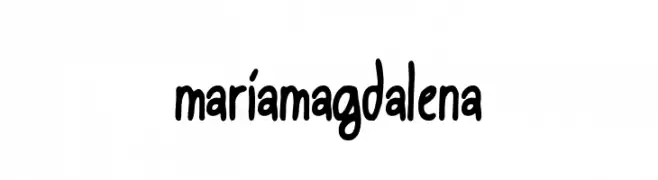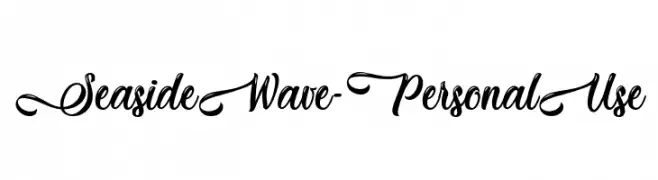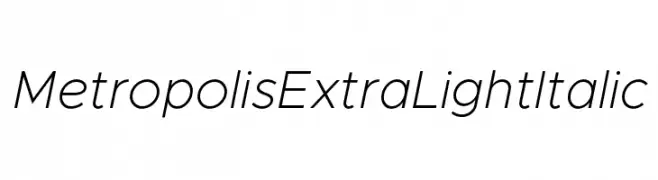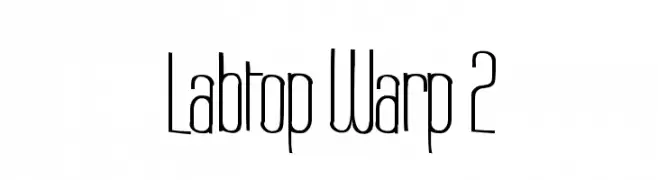
( TwoNineFive - Maximillian Limpo )
A dot matrix style font with a retro digital aesthetic.
A playful, handwritten font with rounded, slightly irregular letterforms.
A decorative cursive font with elegant loops and swashes.
A sleek, extra-light italic font with a modern and sophisticated design.
( Fonts by Graham Meade - GemFonts )
A tall, narrow typeface with thin, consistent strokes and a modern aesthetic.
( Fonts by Alvaro Thomaz - alvarothomaz.com )
A bold, geometric font with a modern and minimalist aesthetic.
A bold, industrial font with geometric and mechanical elements.